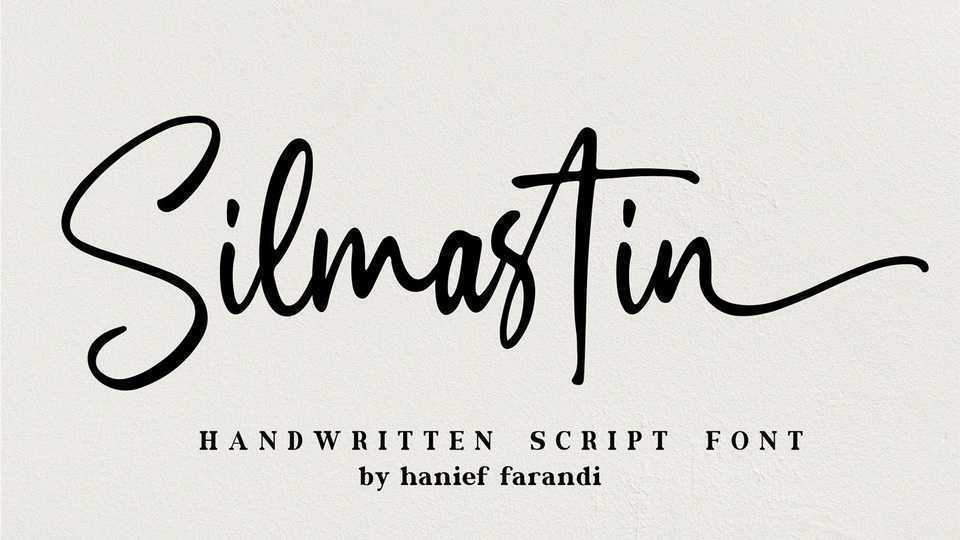
Download Silmastin font, a handwritten script typeface with magical pressure. Silmastin font perfect for creating signature logos and watermarks for photography studio or wedding invitation, best for initial or branding logo signature.